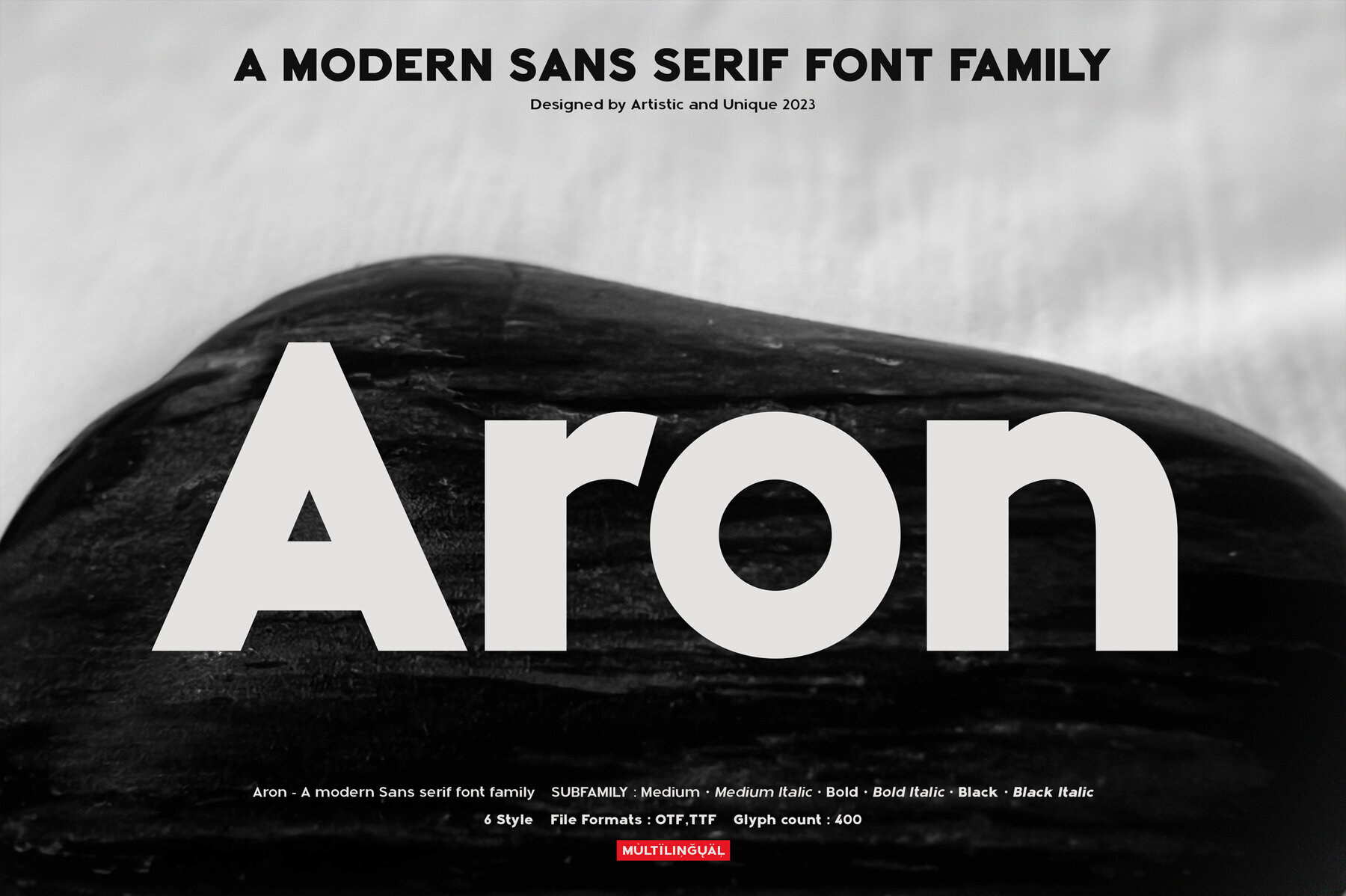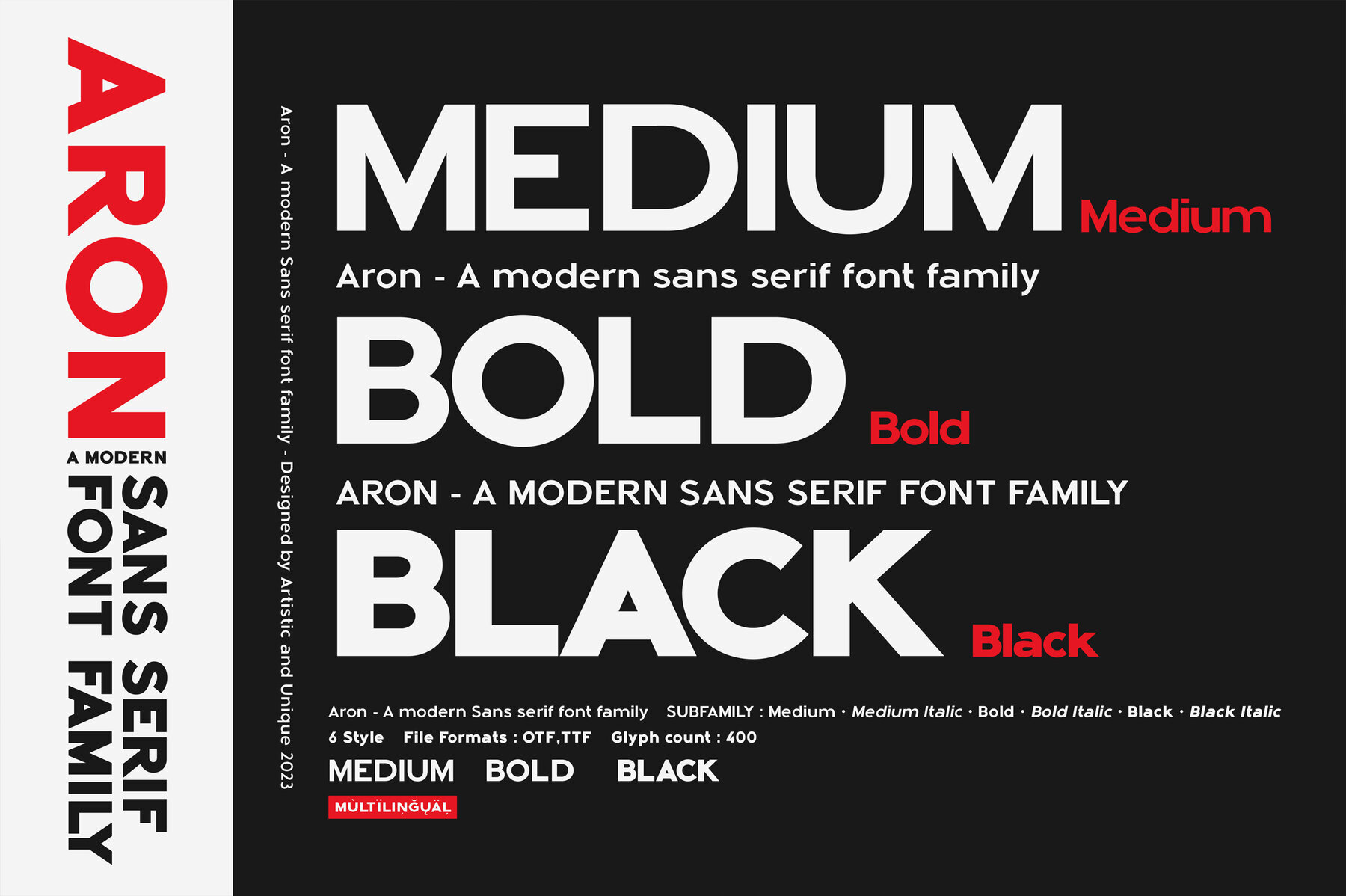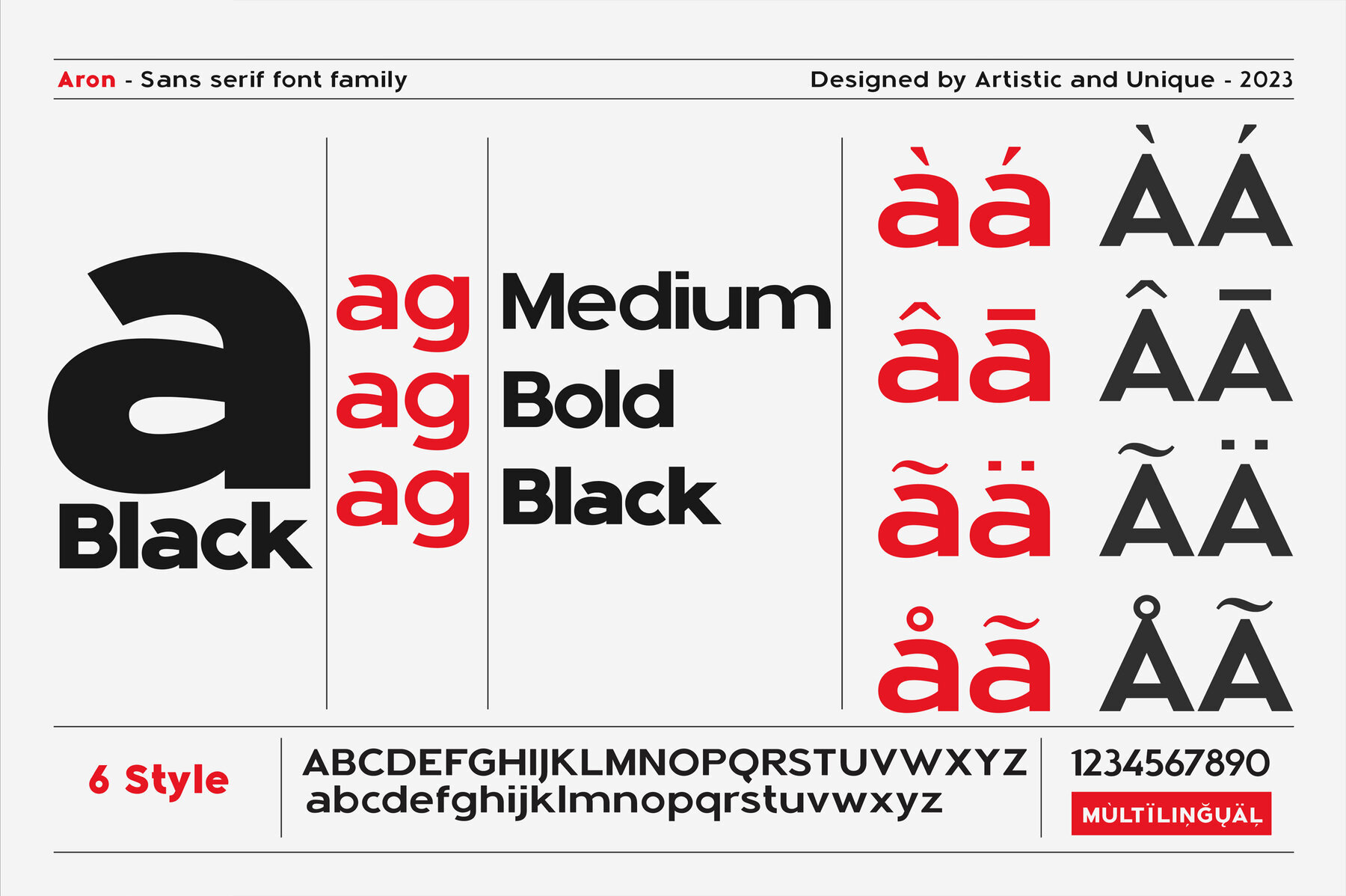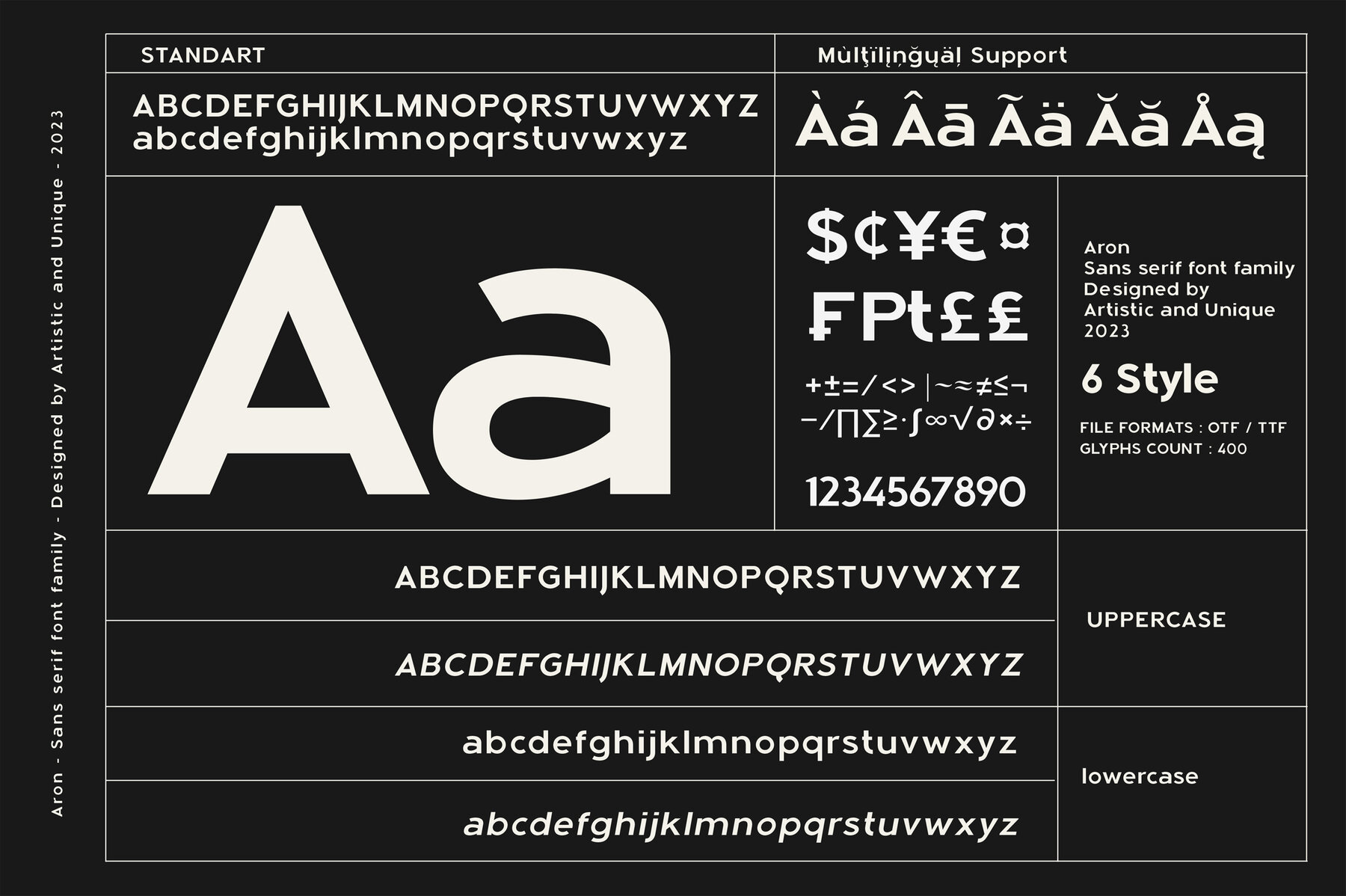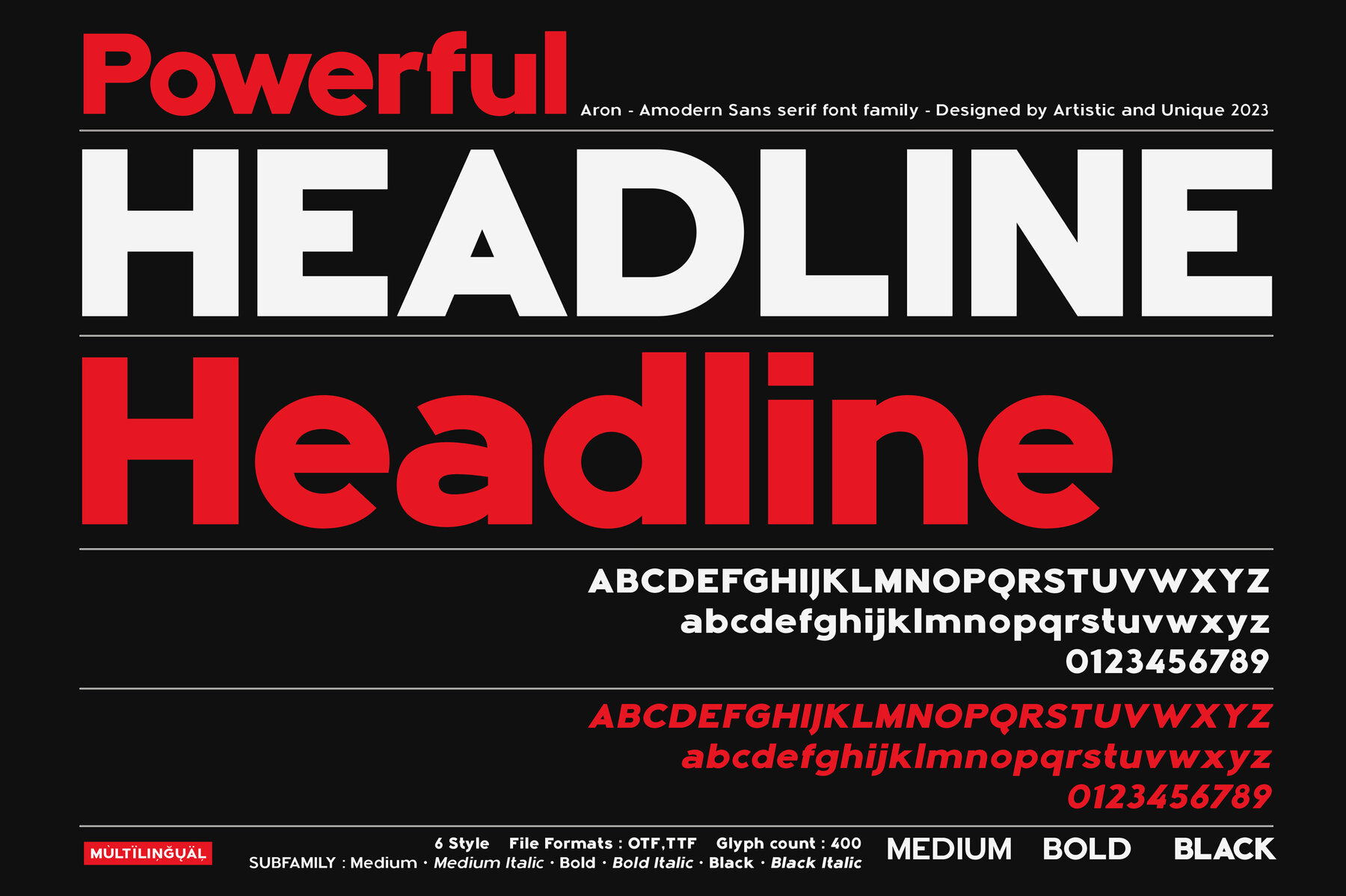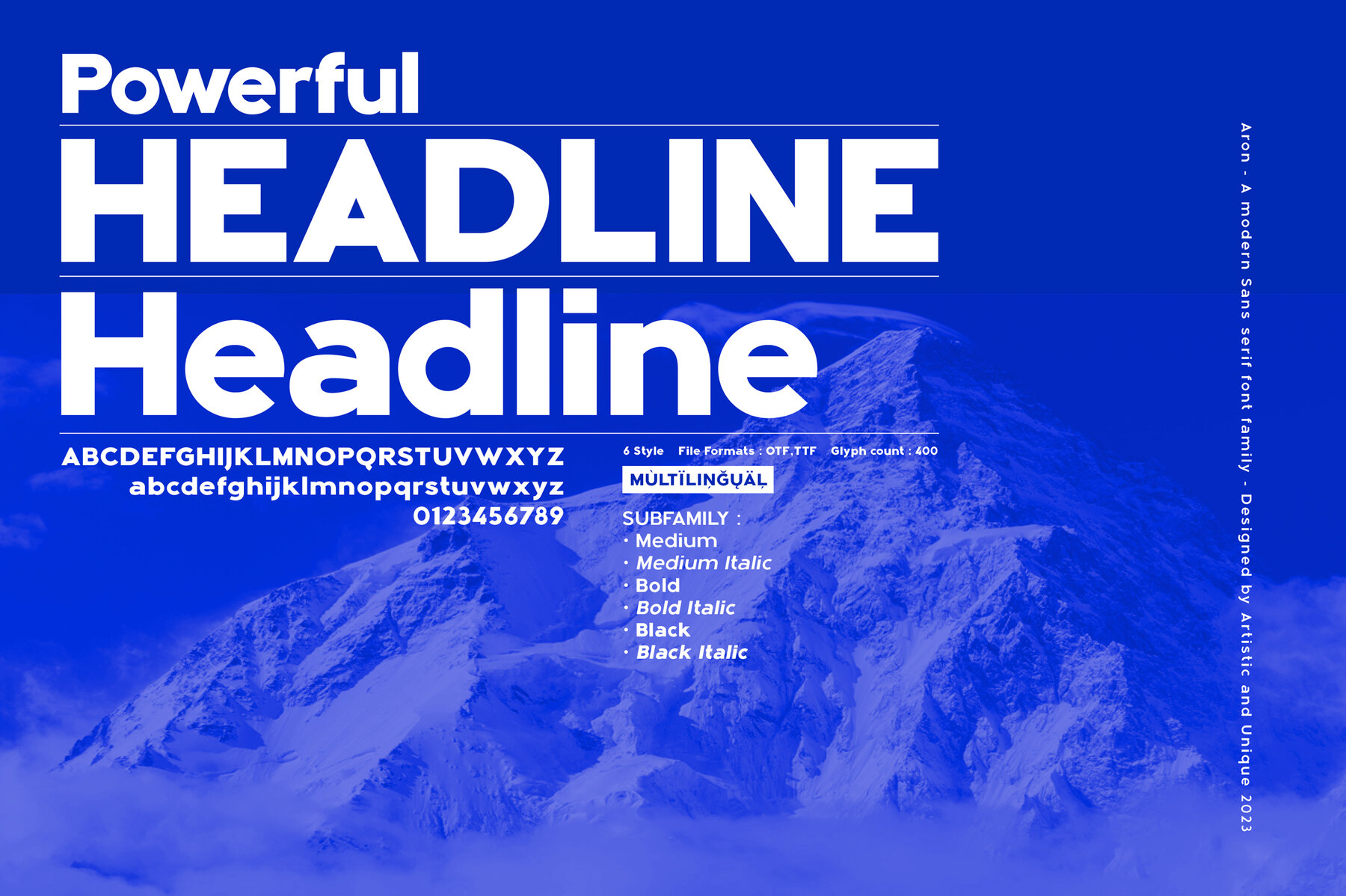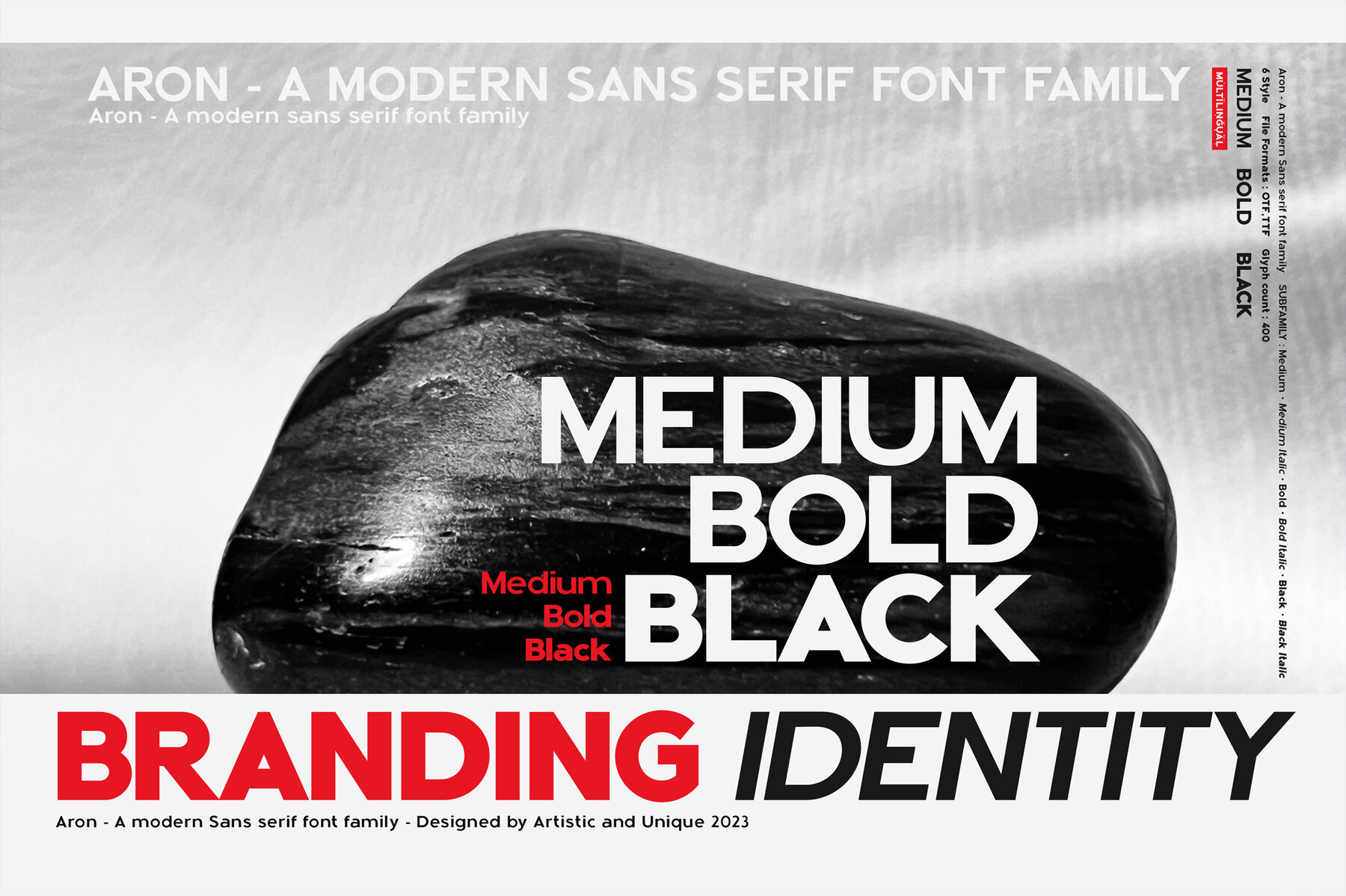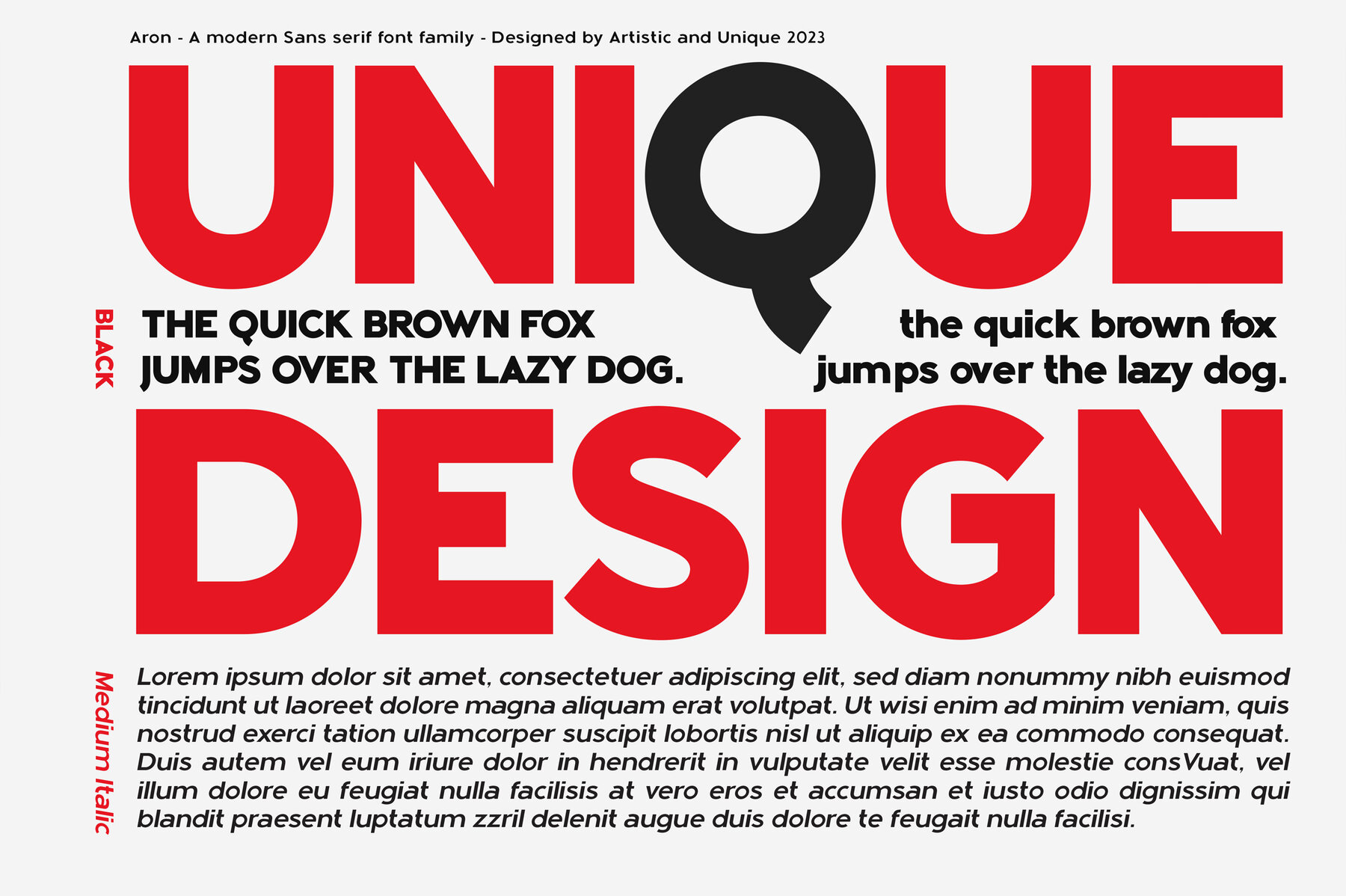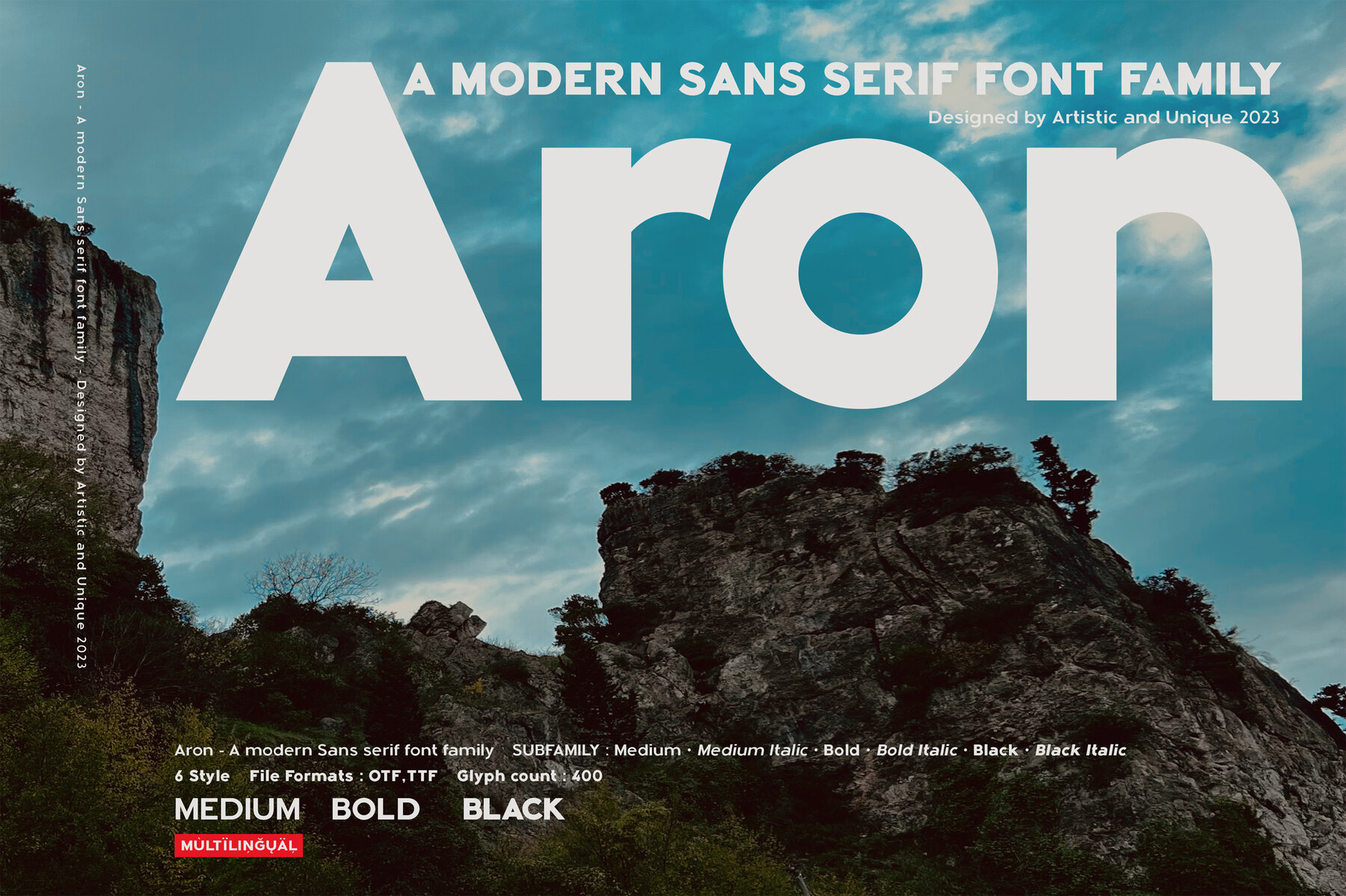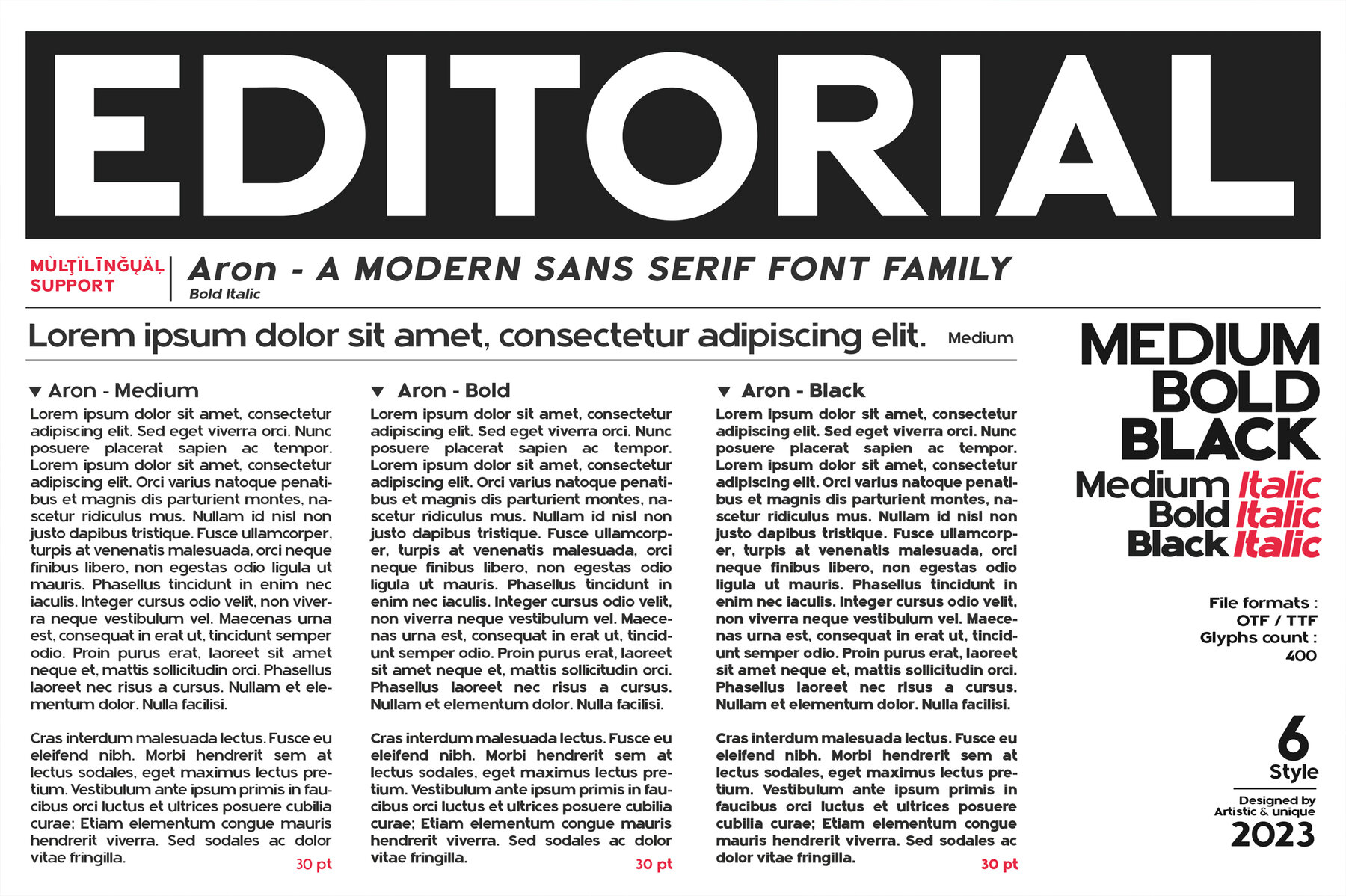
Aron Font
Aron Medium
Aron Medium Italic
Aron Bold
Aron Bold Italic
Aron Black
Aron Black Italic
The Aron Sans Serif Font Family offers a geometric design paired with six distinct styles, enabling a range of versatility for your creative endeavors. With variations that include different italic options, this font enhances readability while making an impactful statement in titles. Featuring six styles, including three bold italics, Aron provides considerable flexibility across diverse applications. Its modern and timeless nature ensures adaptability in numerous contexts. Use the Medium style for seamless body text, while the Bold and Black styles deliver the necessary emphasis for titles. Features: Aron is perfect for books and magazines, editorials, headlines, websites, and more. It effortlessly meets the demands of both modern and classic design projects. Engage with this versatile typeface to elevate your work’s visual impact.Aron Sans Serif: A Multi-Style Font Family